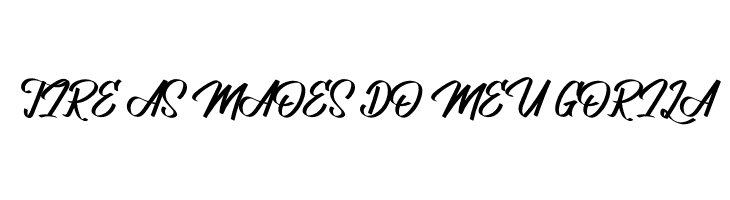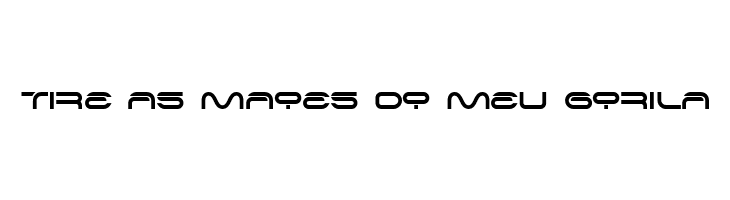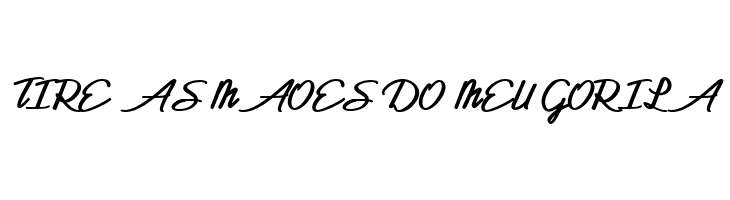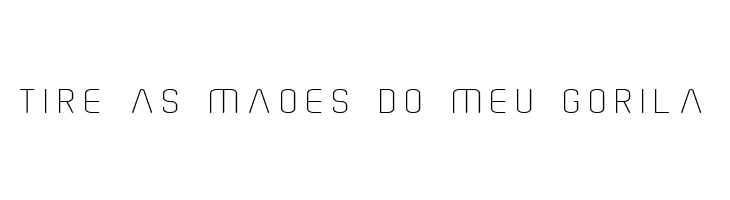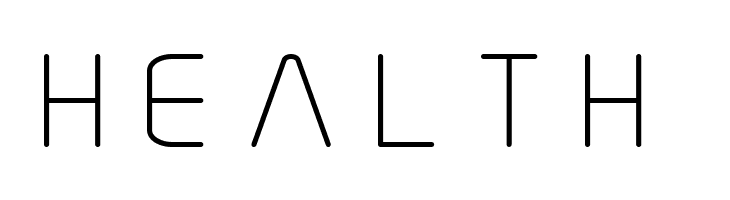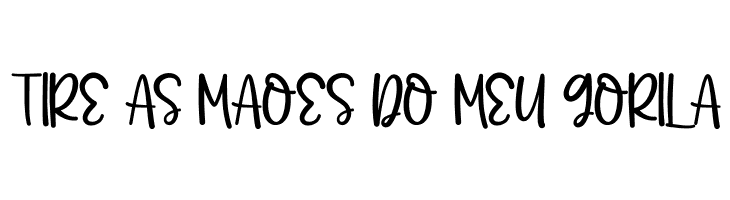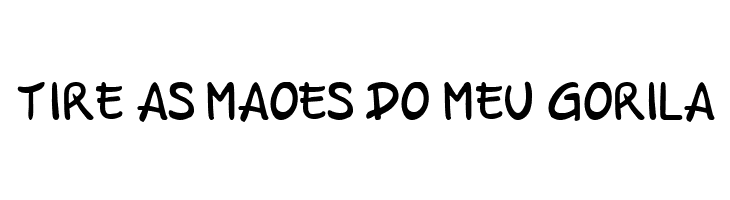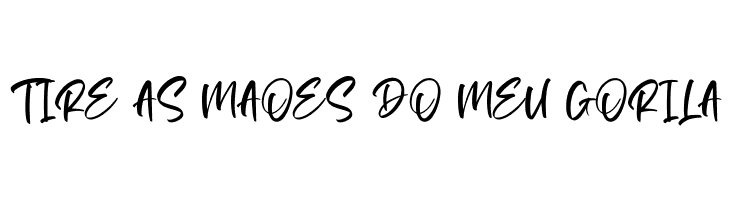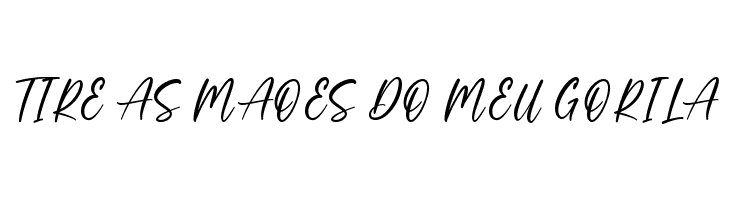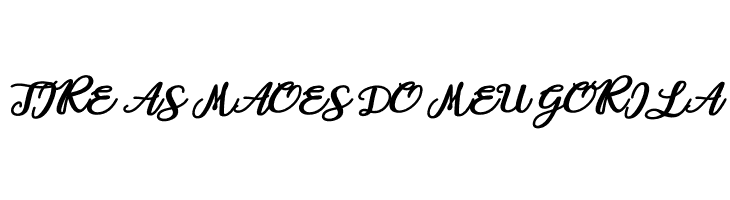
• AlohaOctopusPersonalUse-Reg
A bold, modern script font with flowing, connected letters.
• AlohaSummer
A playful, handwritten font with smooth, rounded strokes and a casual vibe.
• AlohaSummer
A playful, handwritten-style font with bold, rounded characters.
• Alohay Regular Regular
• Alona Free
A lively and expressive handwritten font with fluid, dynamic strokes.
• Alondria Bepah
A bold, expressive script font with dynamic slant and high contrast.
• Alone
A dynamic and elegant script font with fluid strokes and a slight slant.
• Alone
A futuristic, geometric font with rounded edges and a sleek, modern design.
• Alone In Space Reguler
A futuristic, minimalist font with geometric shapes and consistent stroke width.
• Alone in the Dark
A dynamic, cursive script font with an elegant, handwritten style.